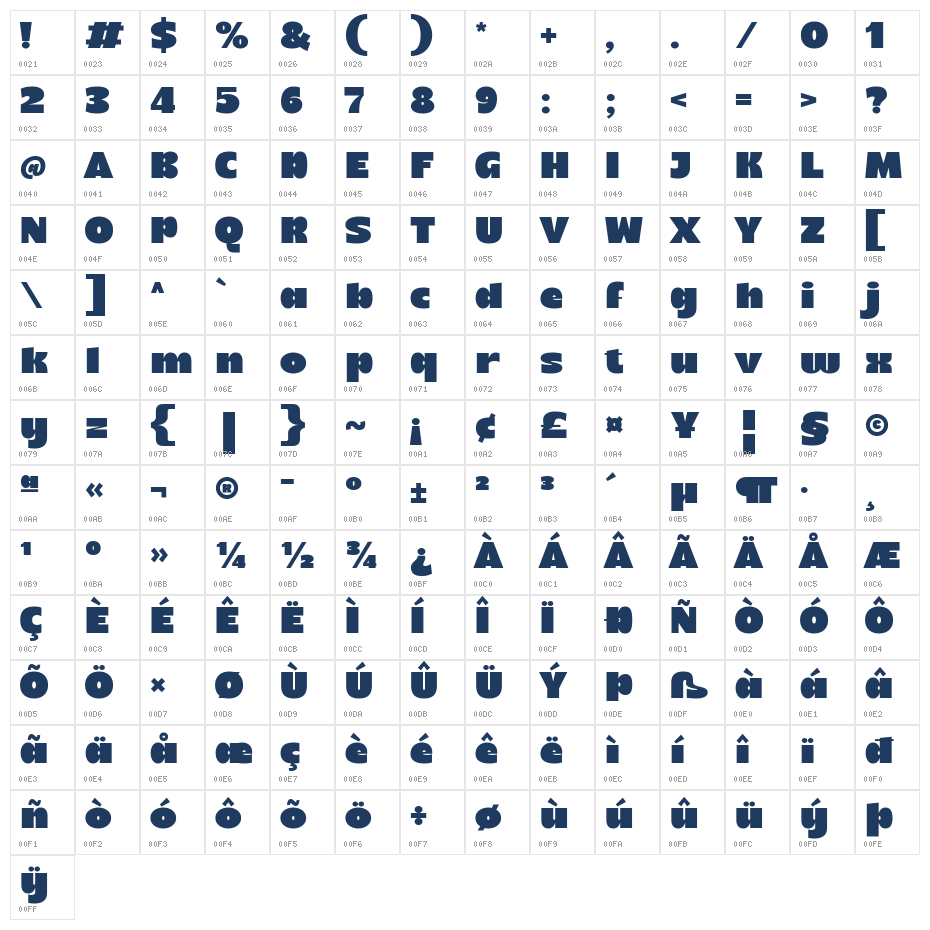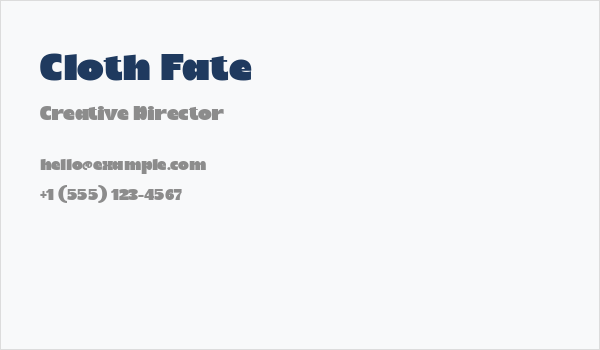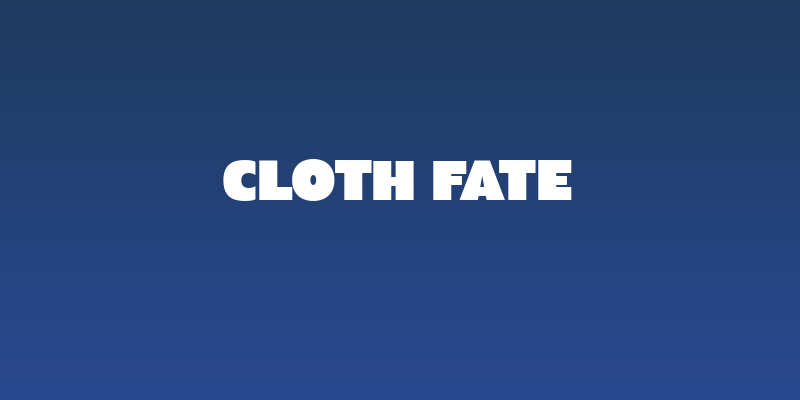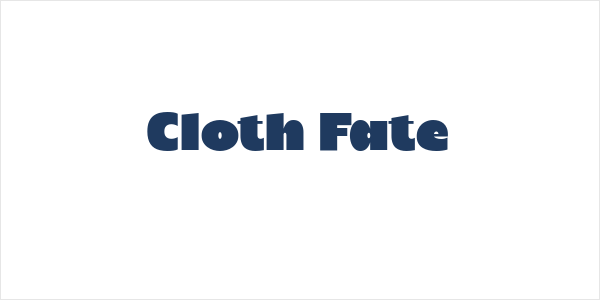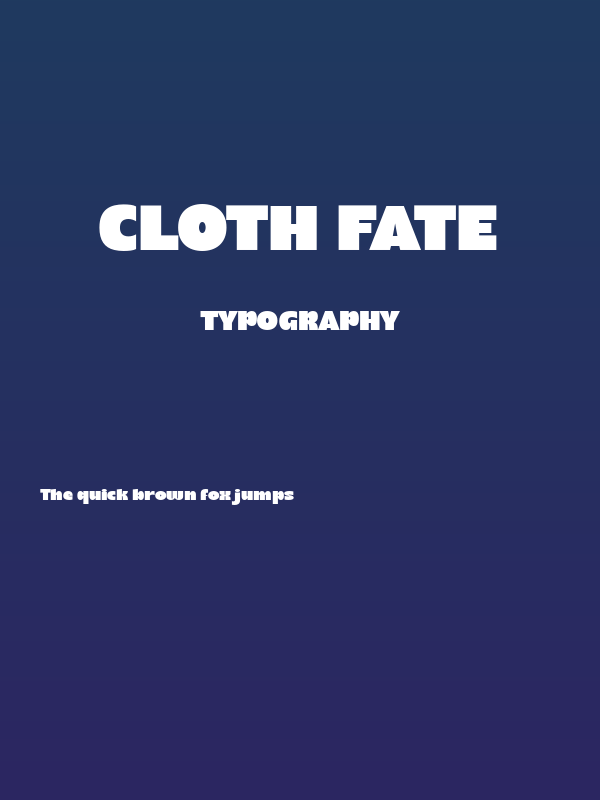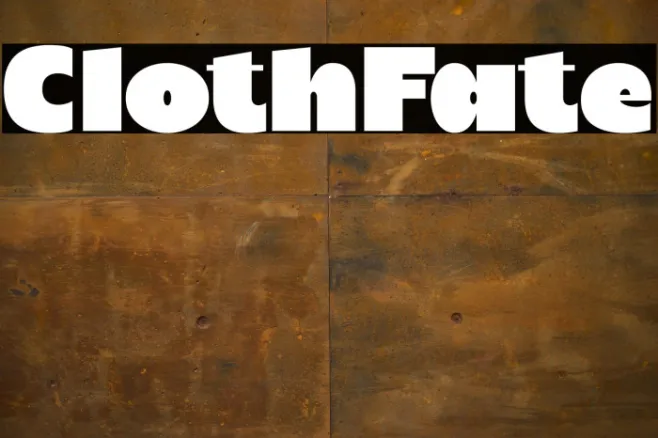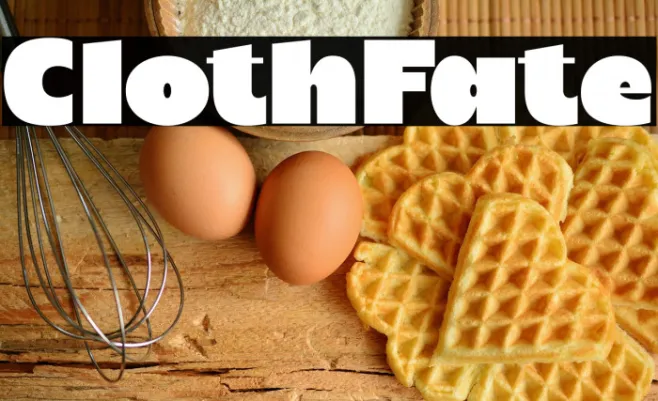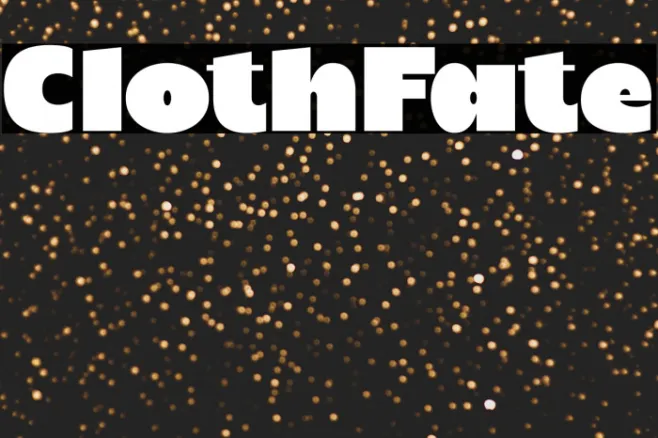
Cloth Fate Font
Cloth Fate Description
Bold, chunky, geometric sans-serif font with uniform stroke width and rounded edges.
| Overall Style | Modern, Bold, Geometric |